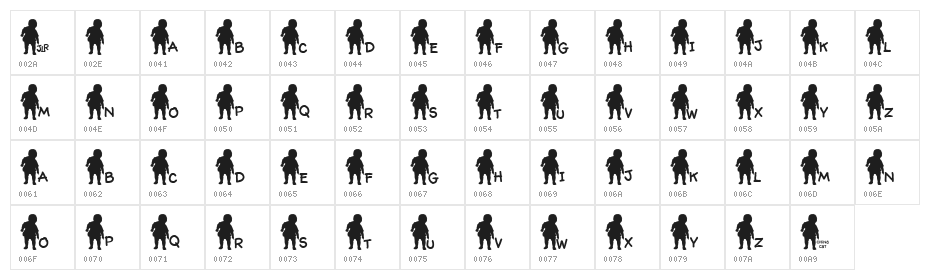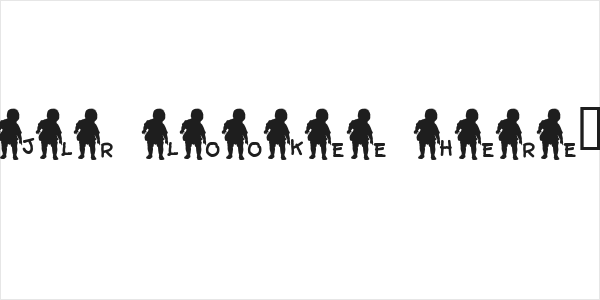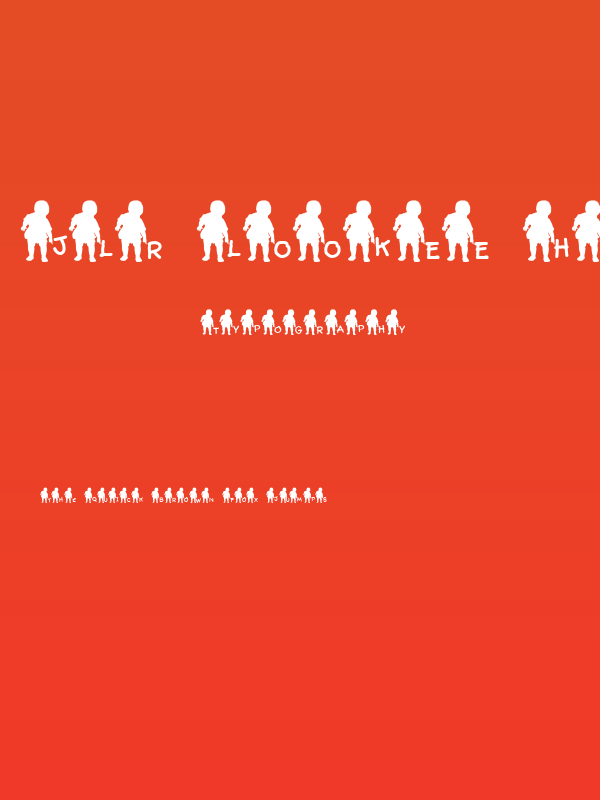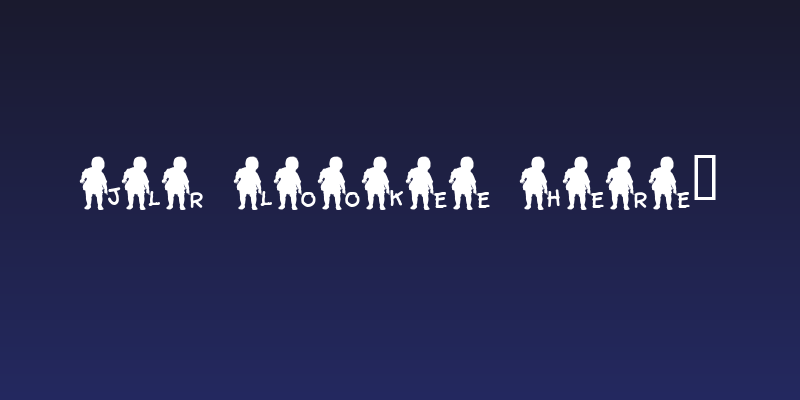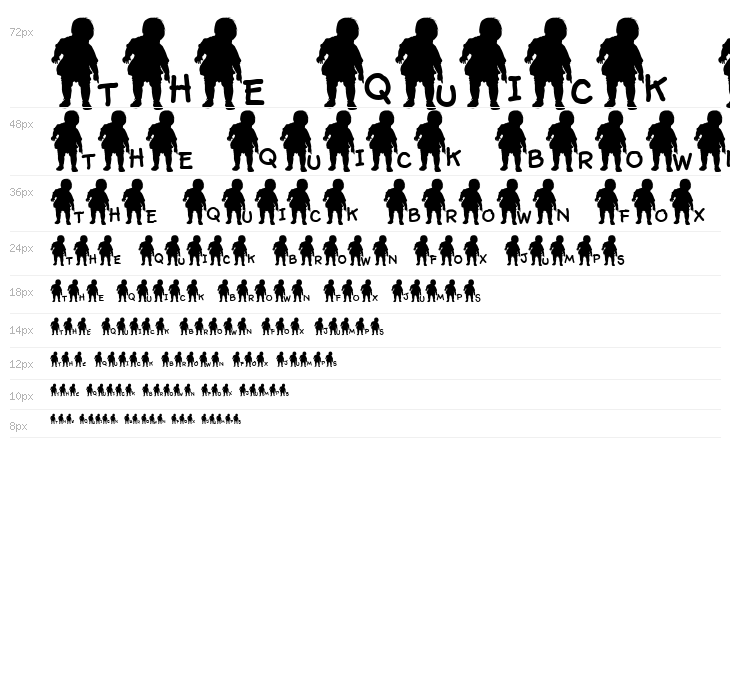
JLR Lookee Here! Font
JLR Lookee Here! Description
This font features a playful and unique design where each character is integrated into the silhouette of a small figure. The letters are bold and clearly visible within the shape, creating a whimsical and eye-catching effect. The font does not include lowercase letters or numbers, focusing solely on uppercase characters. The special characters are represented by rectangular shapes, maintaining the playful theme. This font is ideal for projects that require a fun and engaging visual element, such as children's books, playful branding, or themed event materials.
| Overall Style | Whimsical |
| Proposed Projects | Children's books, playful branding, themed event materials. |